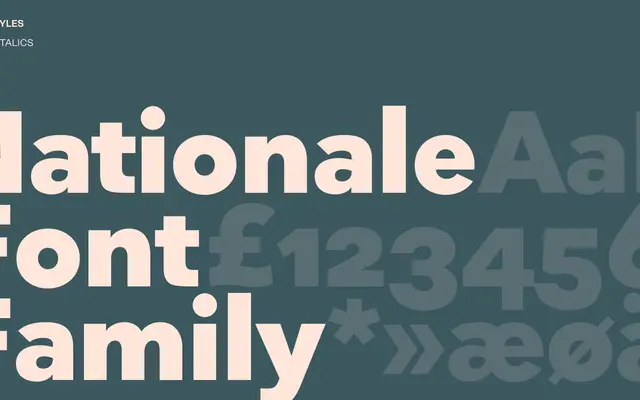
Nationale
A humanist sans from Playtype's Danish stable, designed for editorial and text use.
Nationale is a humanist sans-serif from Copenhagen-based Playtype. The page copy offers little technical detail, but the typeface sits within Playtype's characteristic approach to warm, considered text faces. Suited to editorial and longer reading environments.
The name and the brief character sketch suggest a warm, text-oriented sans with humanist underpinnings, consistent with Playtype's broader editorial sensibility.